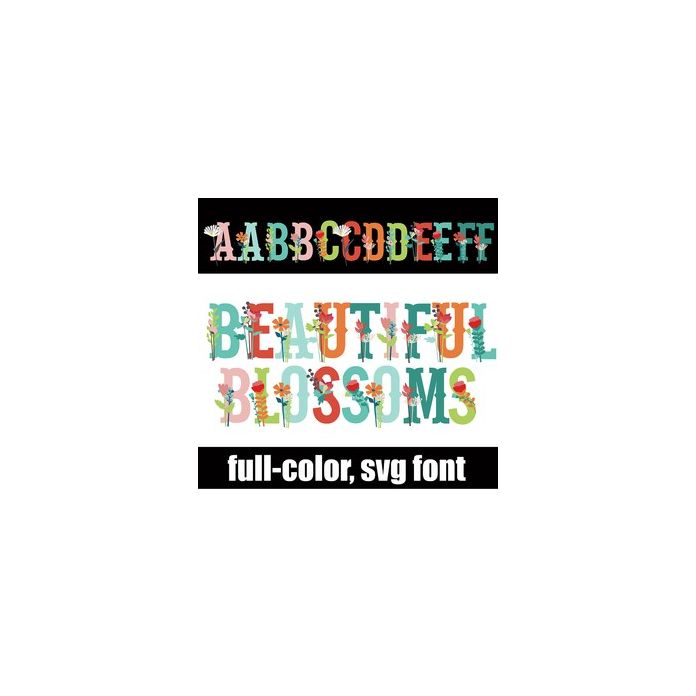
This pretty serif font is covered in bright and warm flowers. There is an alt case w/ additional colors you can access through your system or Silhouette's glyph map.